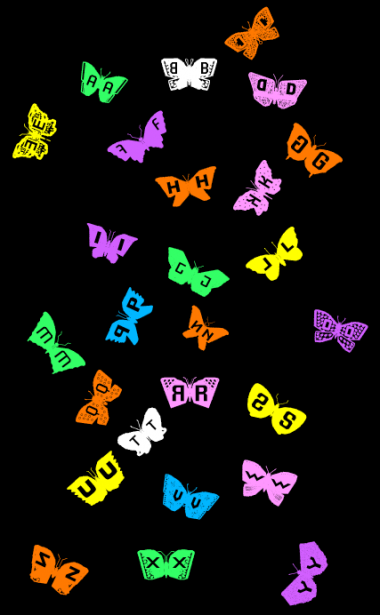
HCButterfly
by macossin
Sure. Spring will come.
Another inspired (and inspiring) design. It will cheer us up during the winter months.
More genius. It really needs to be downloaded to be fully appreciated. Are they based on real species? I'd also like to see a version without letters.
To Rob Meek: I tried to fill all the lowercases with the same ones without letters, but my Mac Book
lost breath. Will try it once more.
Perfect!
Operation starts now!
p or nut 2 p that is the question!
You are actually the very first to make that joke - I like it :)
Incredible work!